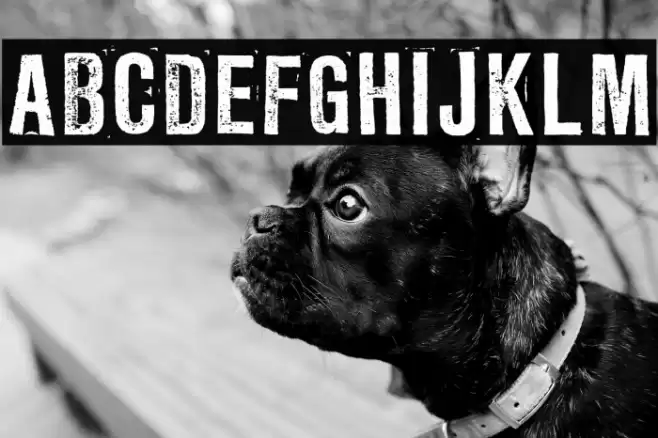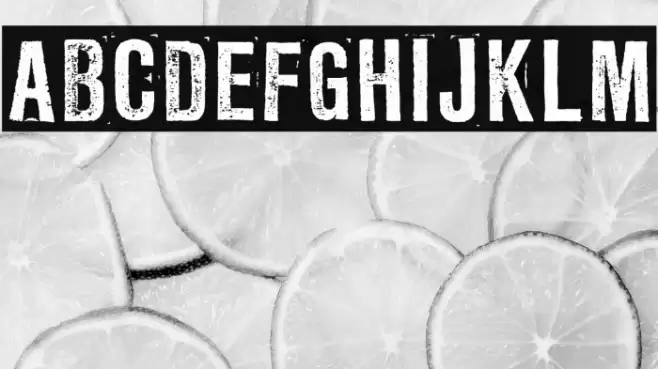
LLRubberGrotesqueOTF Font
LLRubberGrotesqueOTF Description
This font features a bold, distressed style with a vintage, industrial feel. The characters are uppercase and lowercase with a rough texture that gives them a worn, weathered appearance. The numerals and special characters maintain this rugged aesthetic, making the font ideal for projects that require a gritty, authentic look. The bold strokes and uneven edges contribute to its unique character, making it stand out in any design. The font's distressed nature suggests a history or story, adding depth and intrigue to its appearance.
| Proposed Projects | Ideal for posters, album covers, branding for vintage or industrial-themed products, and any design needing a rugged, authentic look. |